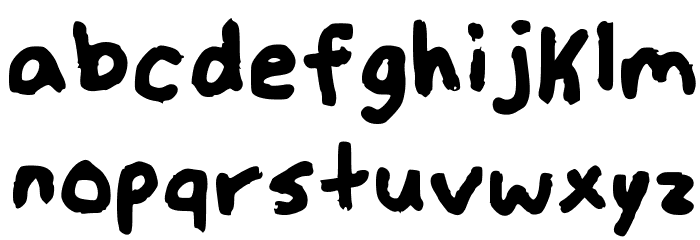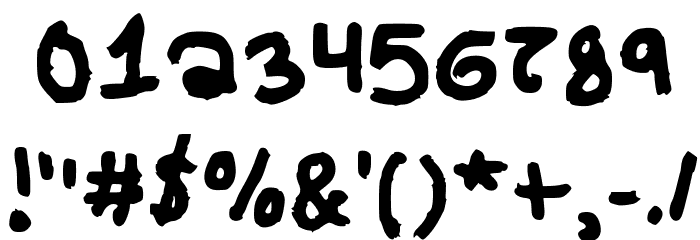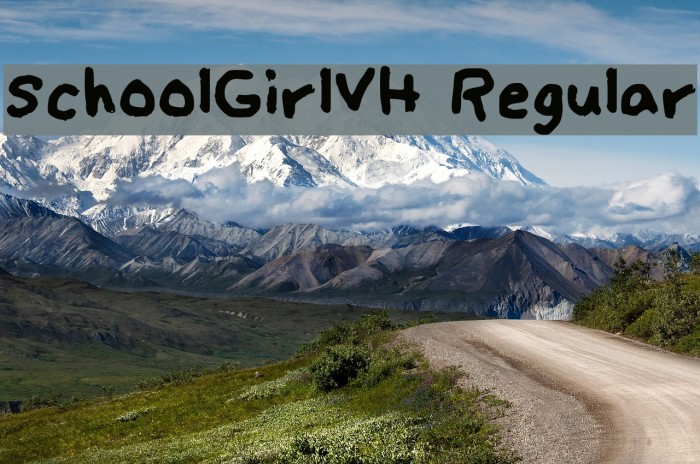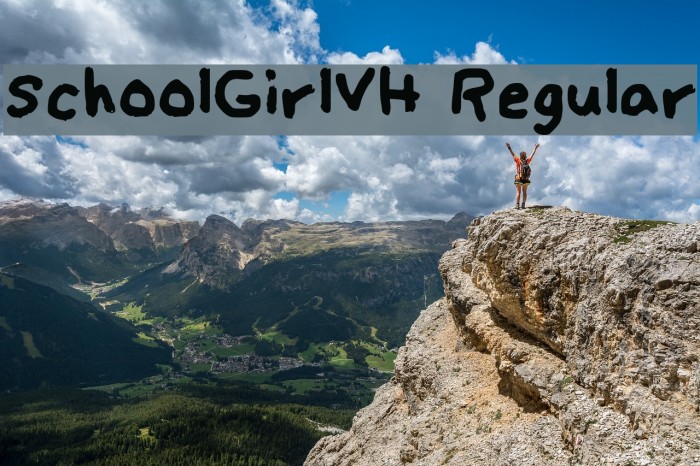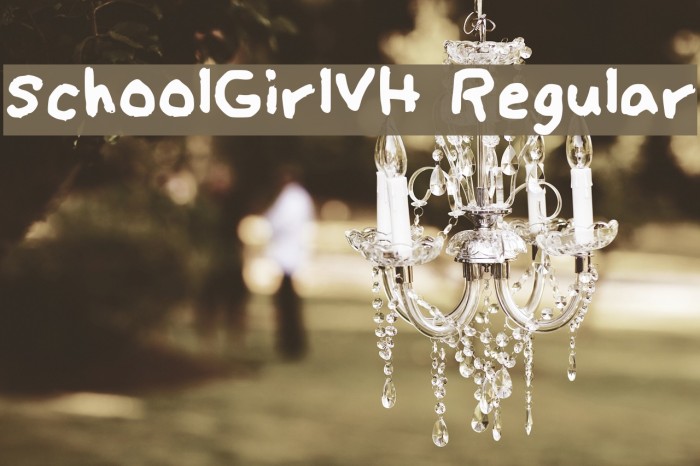
SchoolGirlVH Regular Font
This font exudes a playful and casual vibe, reminiscent of handwritten notes or doodles. The characters are bold and slightly irregular, giving them a lively and spontaneous appearance. The strokes are thick and consistent, creating a strong presence on the page. The uppercase and lowercase letters maintain a consistent style, with rounded edges and a slightly uneven baseline, adding to the informal charm. The numbers and special characters follow the same playful aesthetic, making this font suitable for projects that require a touch of whimsy and creativity.
A playful, handwritten-style font with bold, irregular strokes.
- Proposed Projects: Ideal for children's books, casual invitations, playful branding, and creative posters.
- Overall Style: Casual, Playful
- Use Case: Headlines, Logos, Informal Text